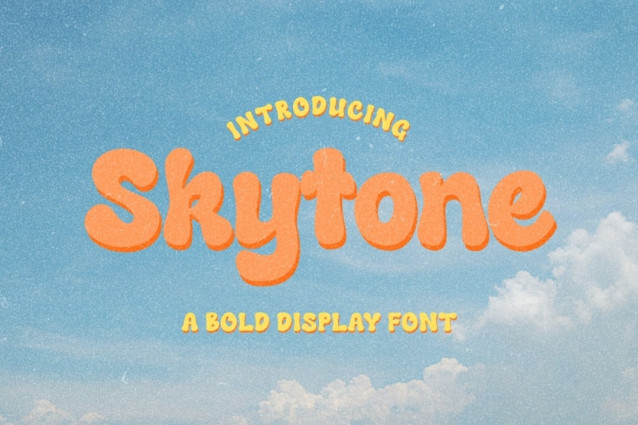
Skytone Font
Skytone Font is a simple and modern display font suitable for quotes, logos, headings, titles, and many more. Use it on any of your creative projects, and your designs will become outstanding!